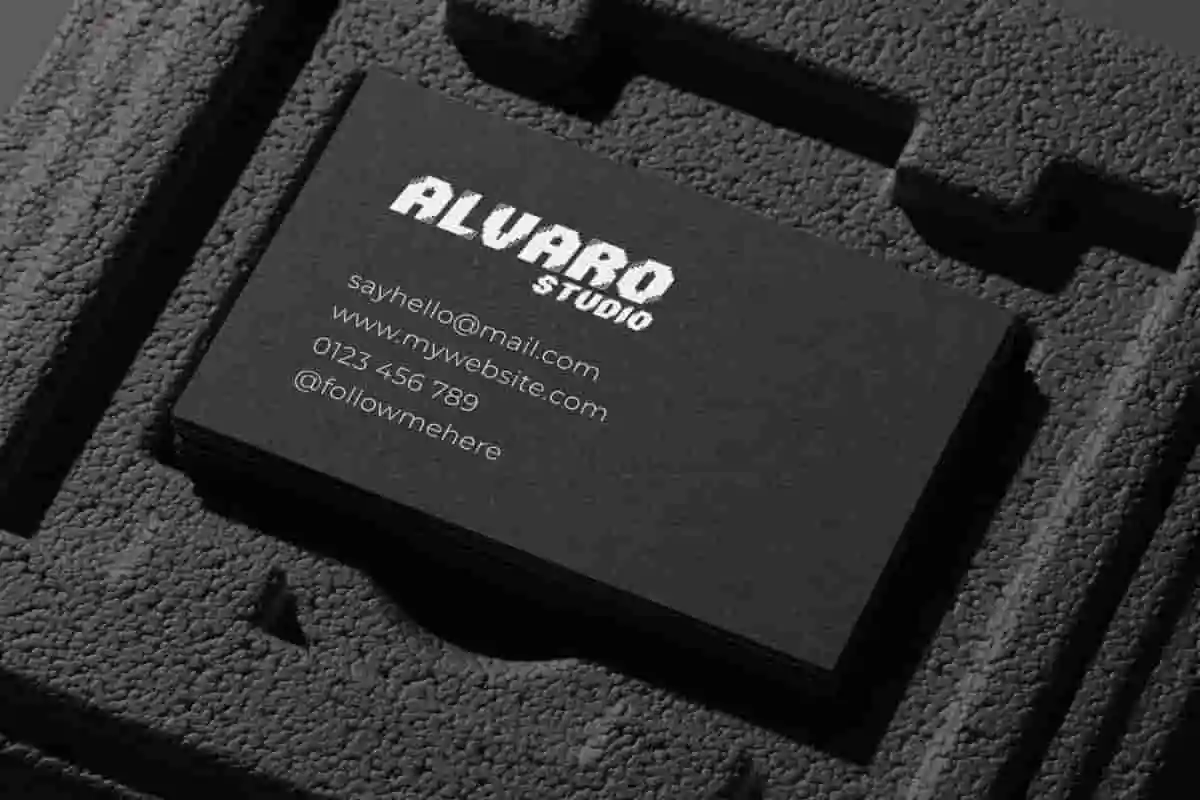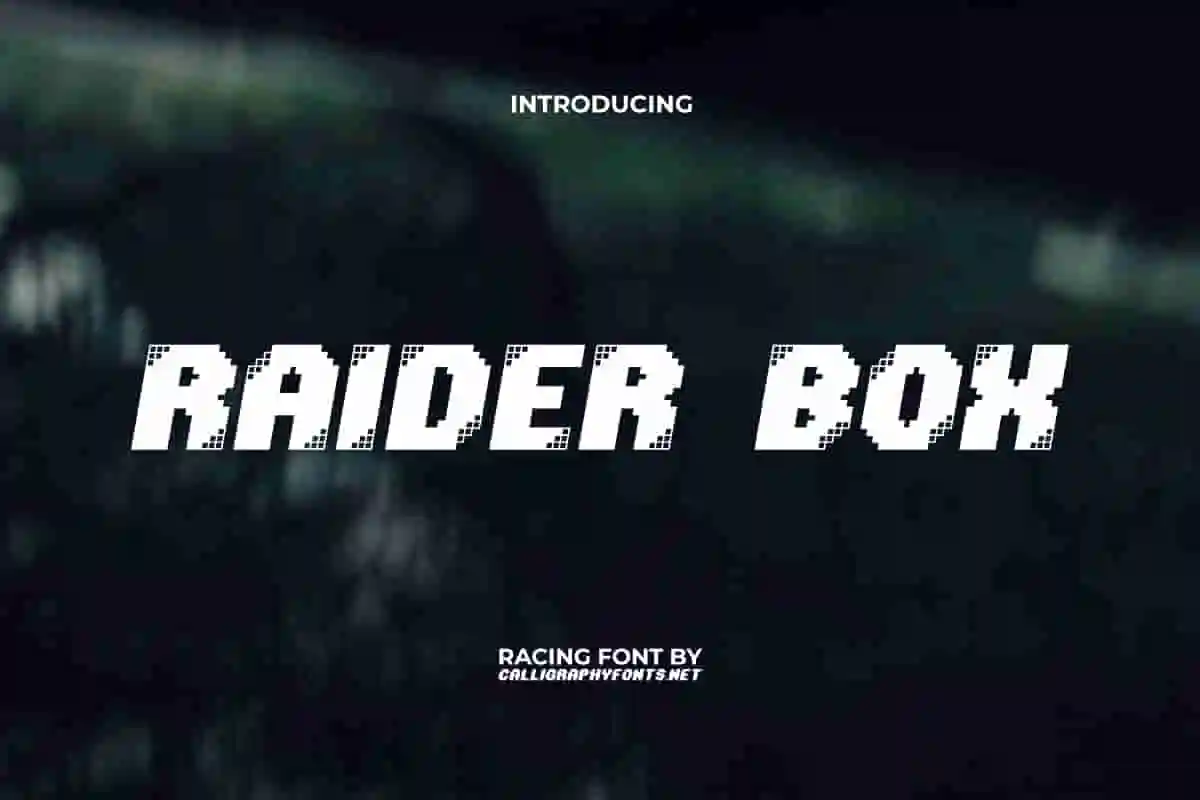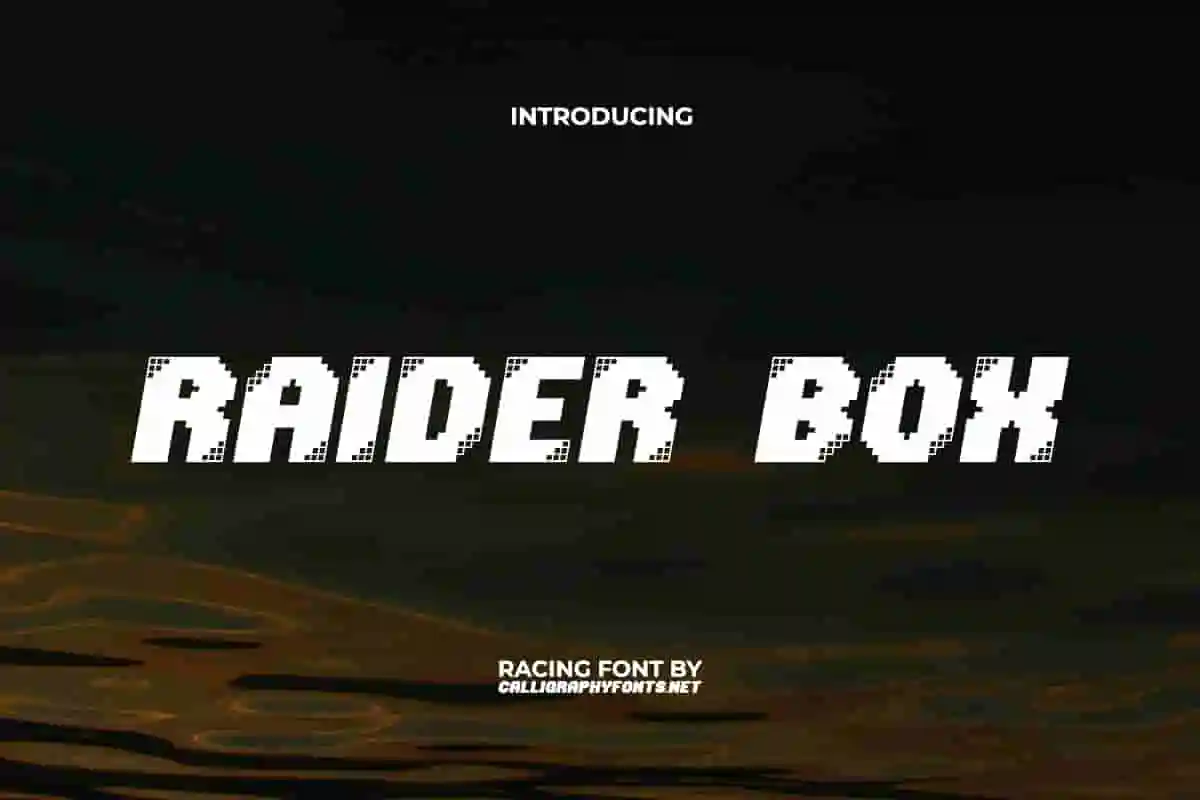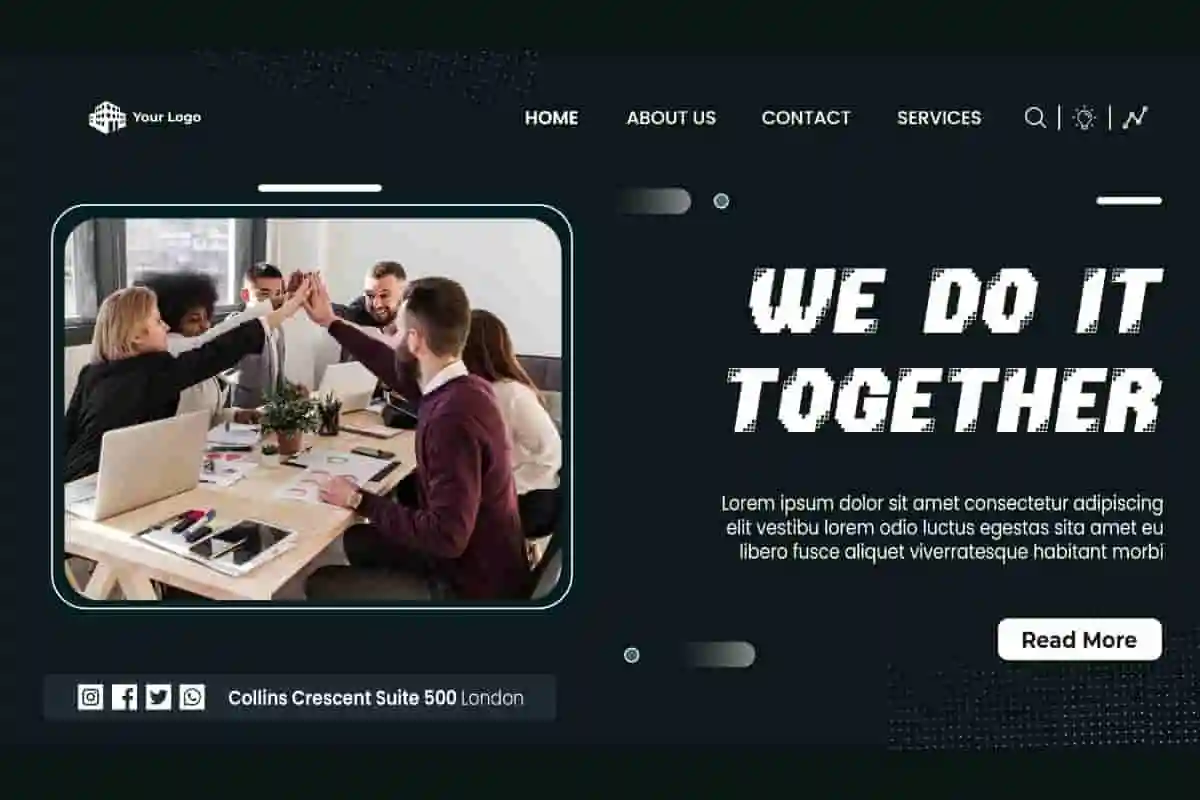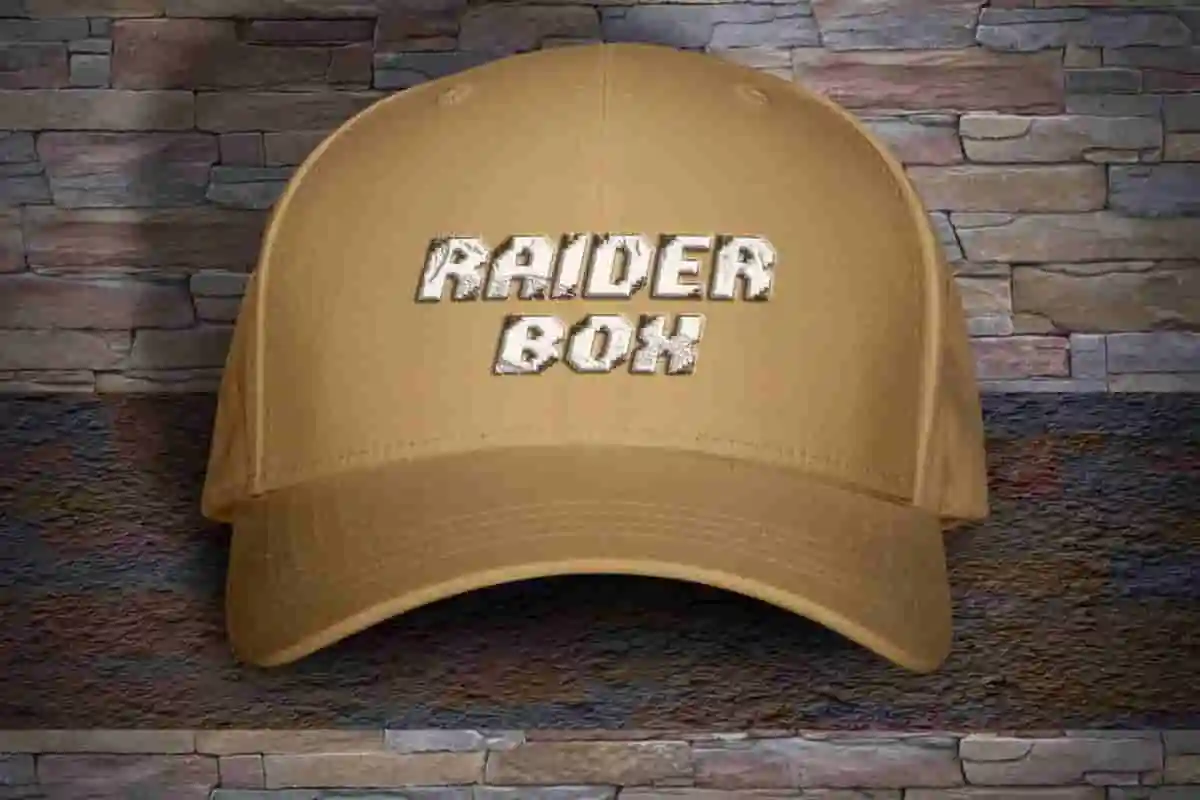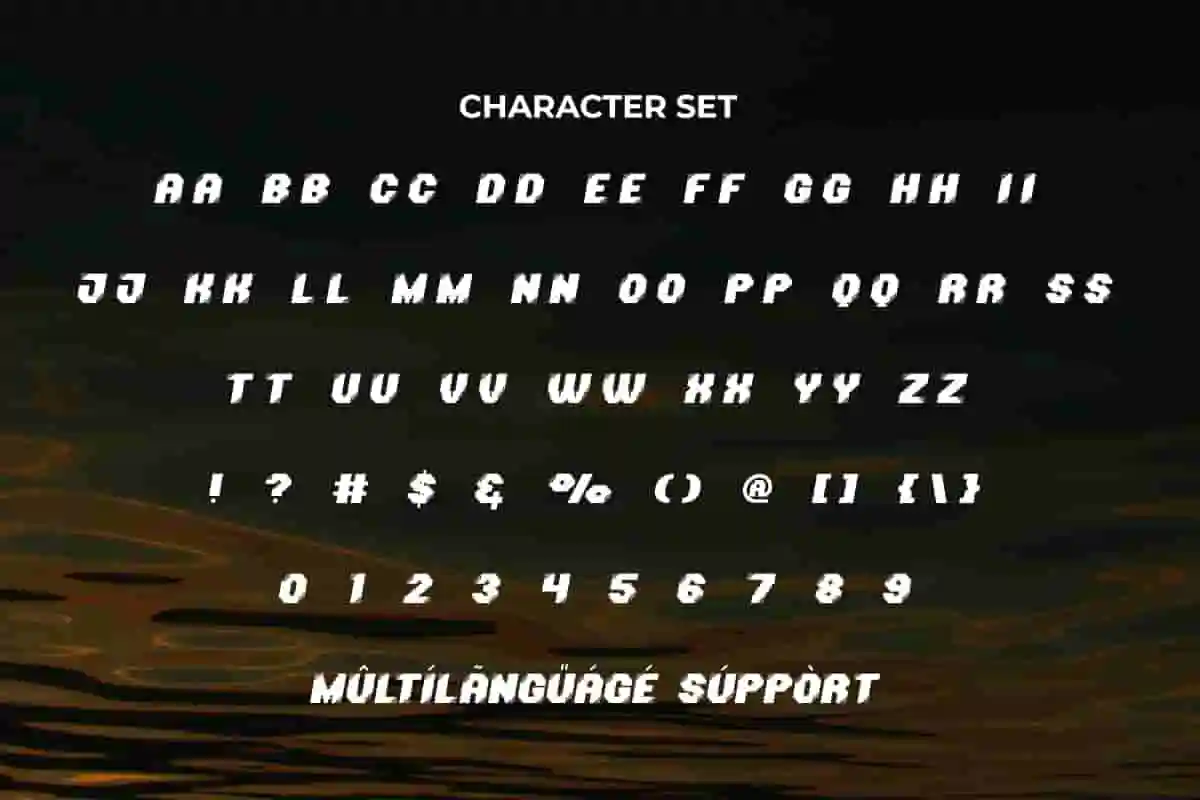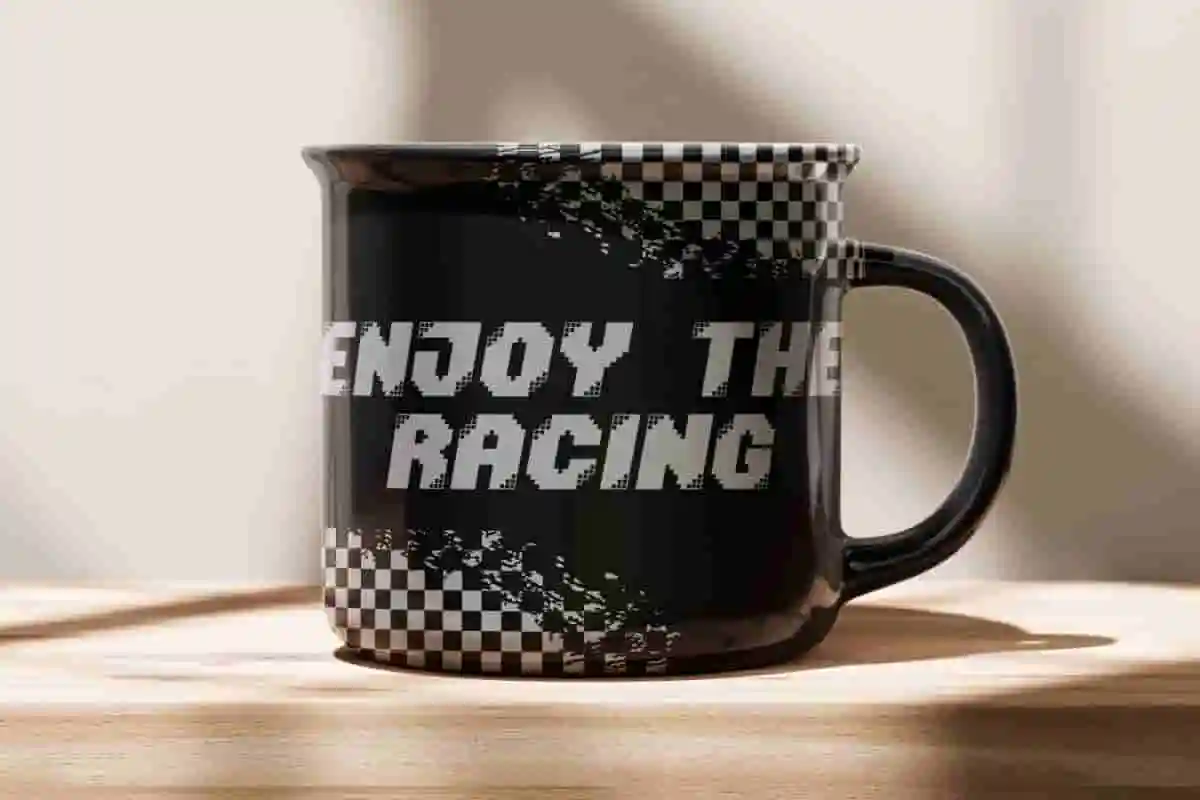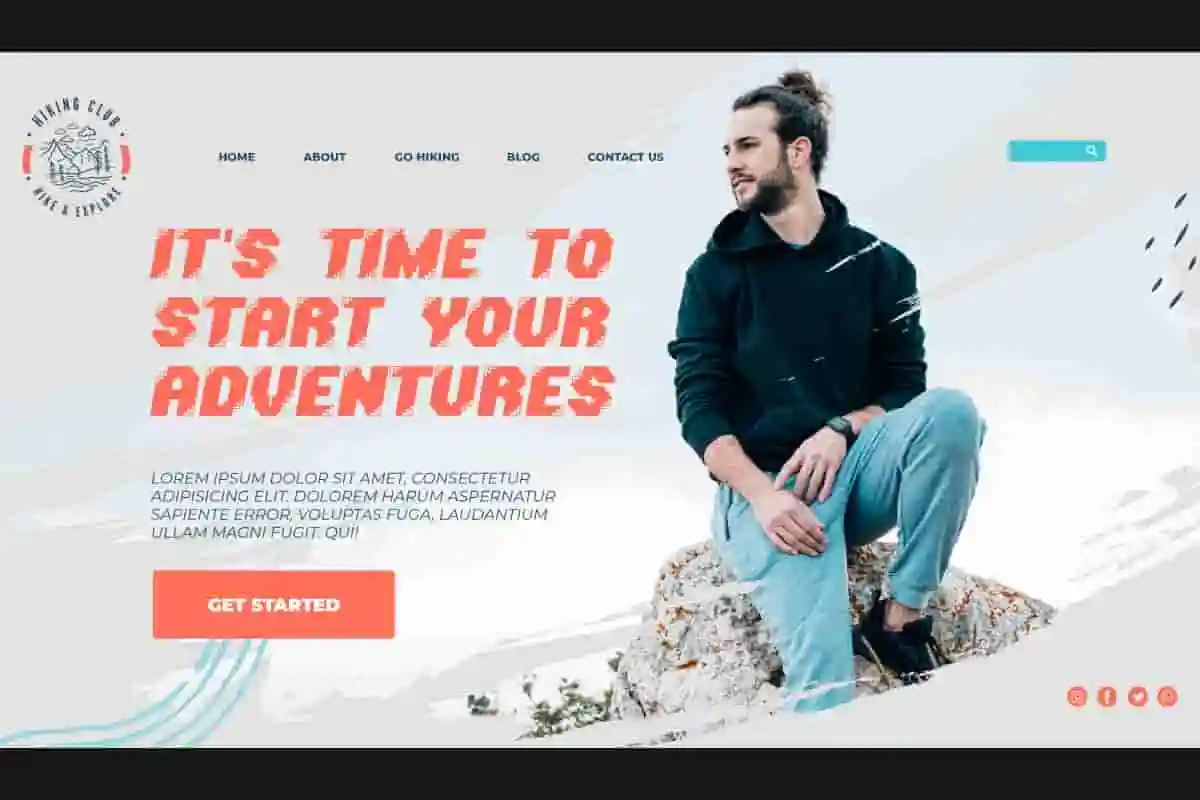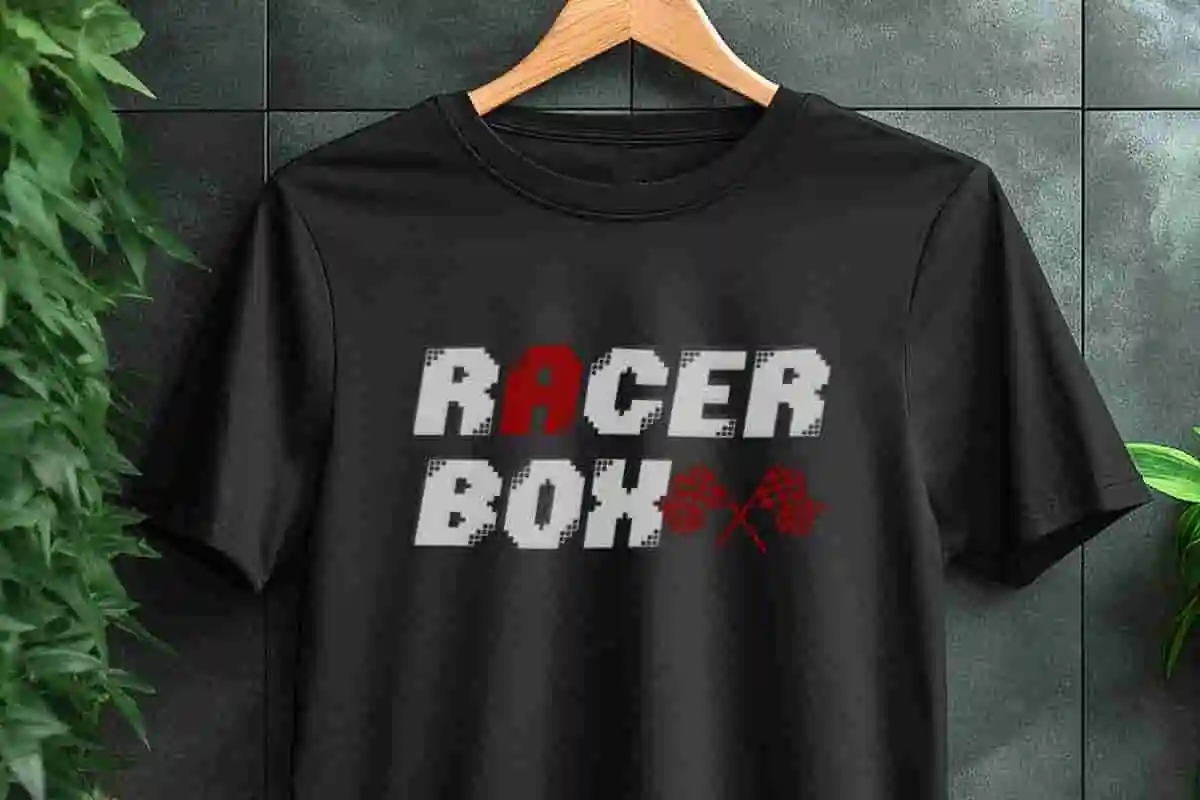
Raider Box Display Font
Raider Box Display Font is a modern blocky pixel racing font. This font will be suitable for game, sport, techno design themes. So get creative and mix things up so you can do cool things with the characters of this font!
Raider Box Font is a racing display font in pixel art designed with futuristic precision and creativity. Add this type to your creative ideas and watch how it will make it stand out! This is suitable for banners, billboard, blogs, brochure, business card, covers, custom embroidered hats, decals sticker, flyer, headers, logos, mockup, packaging design, poster, printed materials, stationery, t-shirt, template, title, website, and much more.
Unleash strength and creativity with Raider Box Display Font, a bold and modern typeface designed to make an impact. With sharp edges, geometric balance, and a commanding presence, this font is built for projects that demand attention and confidence.
Perfect for logos, posters, headlines, merchandise, sports branding, gaming graphics, packaging, and event promotions, Raider Box Display Font adds a fearless edge to any design. Its solid structure and strong style ensure your message stands out, whether displayed on digital screens or in large-format prints.
In today’s fast-paced visual world, it’s not enough to be seen—you need to be remembered. Raider Box Display Font gives your work the unforgettable edge it needs to dominate the spotlight. Its bold character creates a lasting impression, ensuring your designs resonate with strength and creativity.
Raider Box Display Font has a striking and experimental racing font visual. It uses impactful block or sans serif base letterform decorated with well-arranged small box elements. Ideal for accessories and merchandise, adventure sports, auto racing, clothing brand, creative industries, fashion, games, graphic design, manufacturer of various beverage containers, photo studio, publisher, sportwear, transport advertising, and much more.